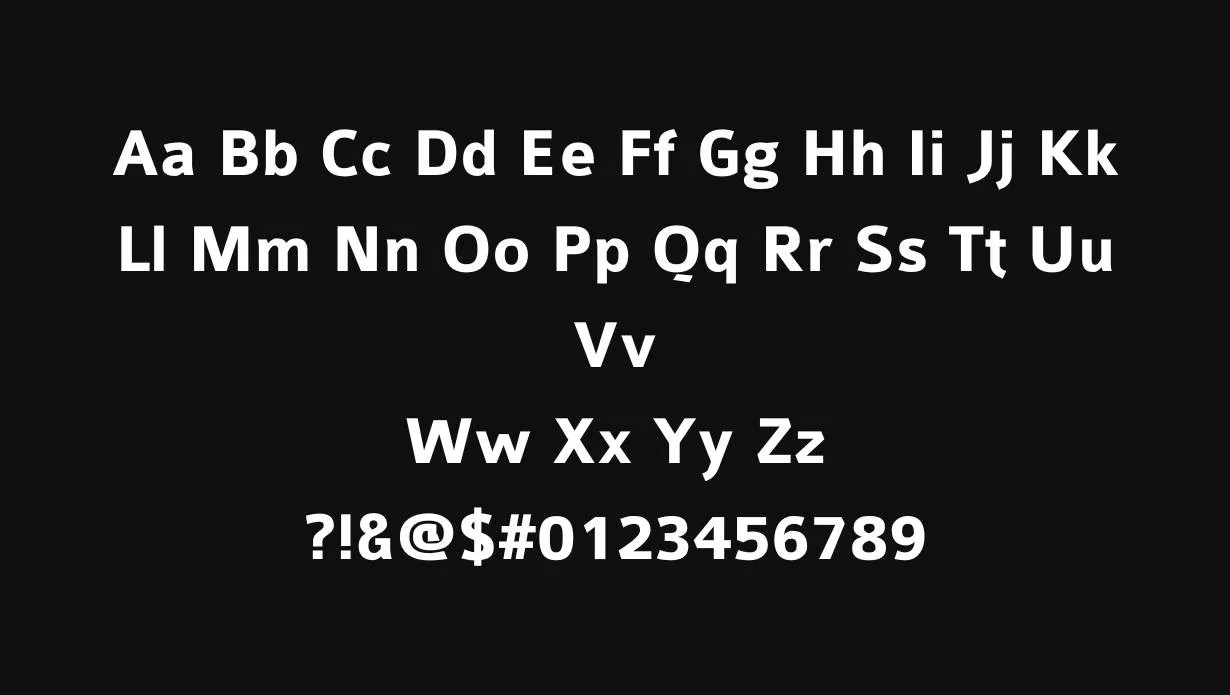
Colaborate Font comes in the Sans-Serif font family that was created by Ralph Oliver du Carrios and shared by Carrios Type Designs along with 5 different styles and 250 unique glyphs. It has a clean and legible texture that makes it the top choice for body text and headlines.
This typeface has TTF and OTF formats, and the design of this typeface is kept alive with significant height and width which makes it a versatile typeface.